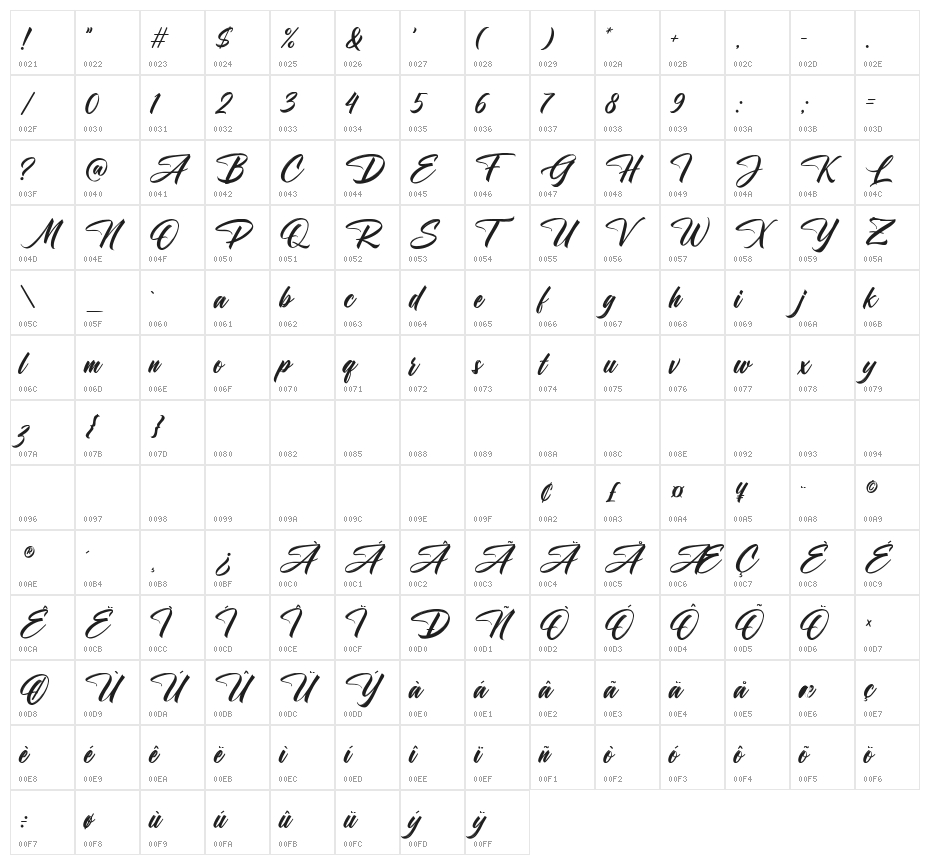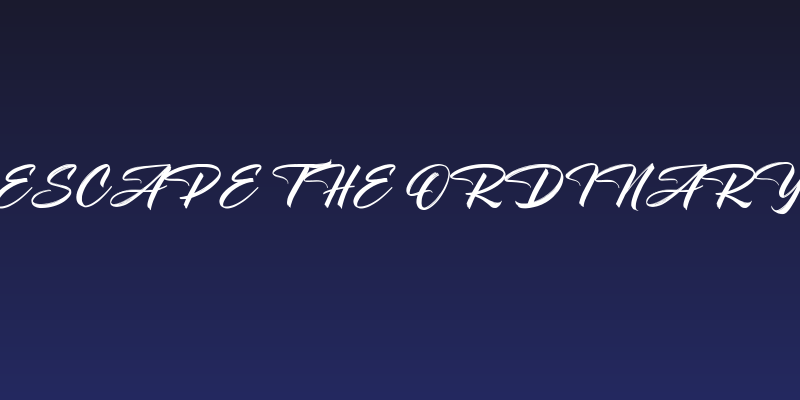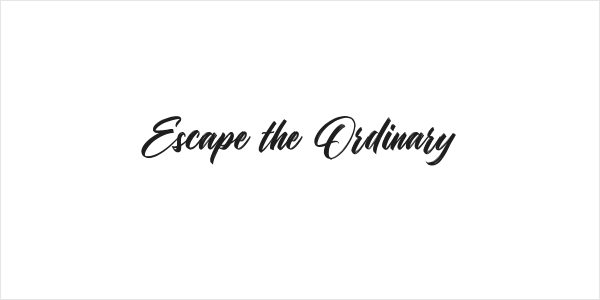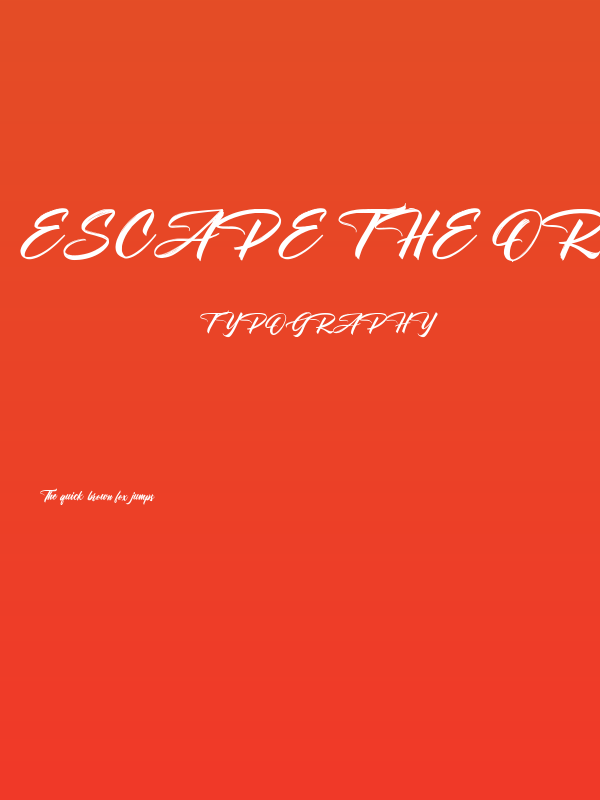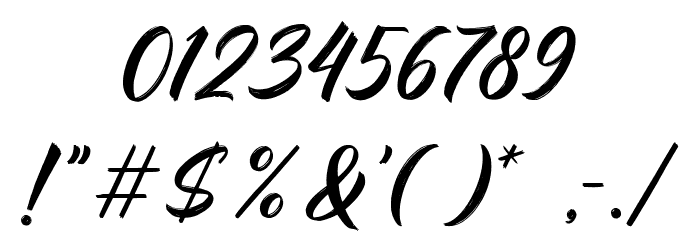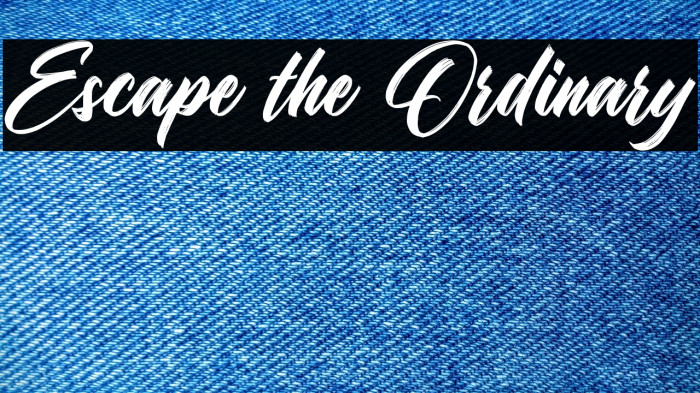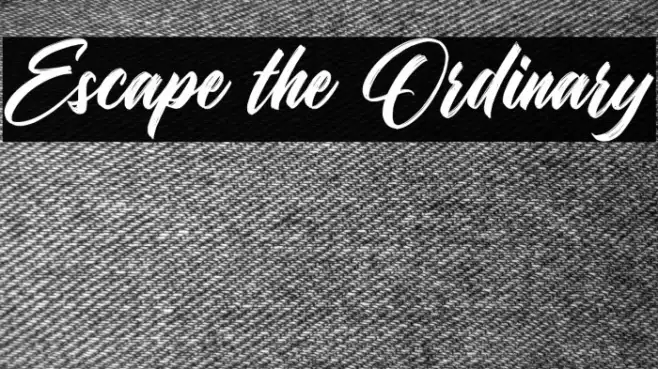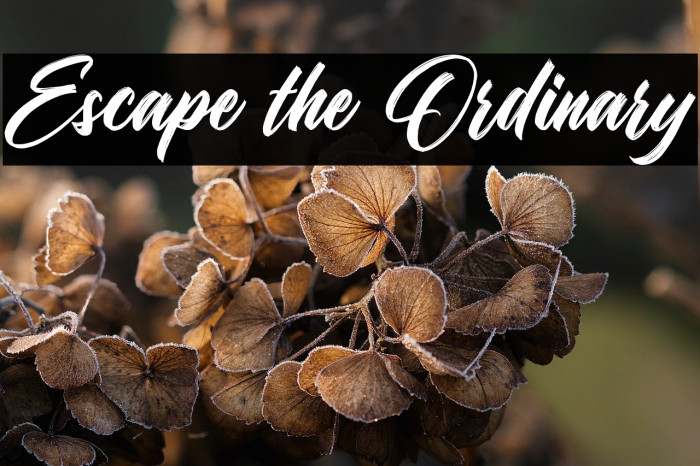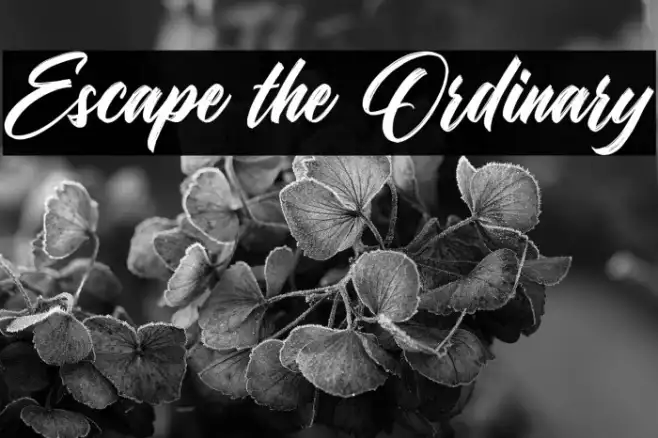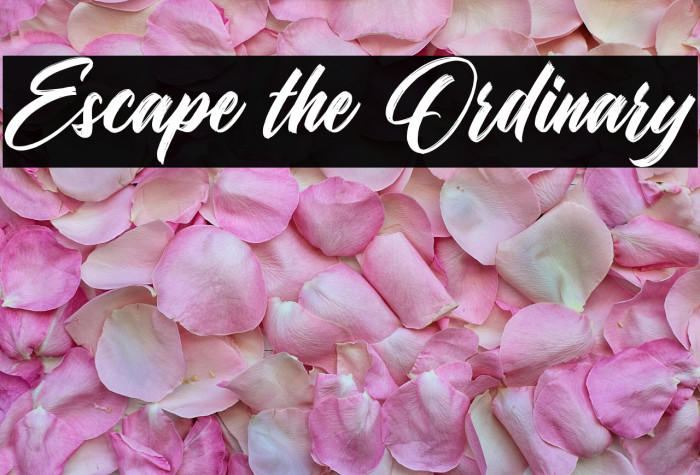
Escape the Ordinary Font
Escape the Ordinary Description
This font exudes a dynamic and energetic style, characterized by its fluid, cursive script. The letters are elegantly connected, creating a sense of motion and flow. The strokes are bold and confident, with a slight slant that adds to its expressive nature. The uppercase letters are particularly striking, with sweeping curves and flourishes that enhance its decorative appeal. The lowercase letters maintain a consistent style, ensuring readability while retaining the font's artistic flair. Numbers and special characters are crafted with the same attention to detail, making this font versatile for various design needs.